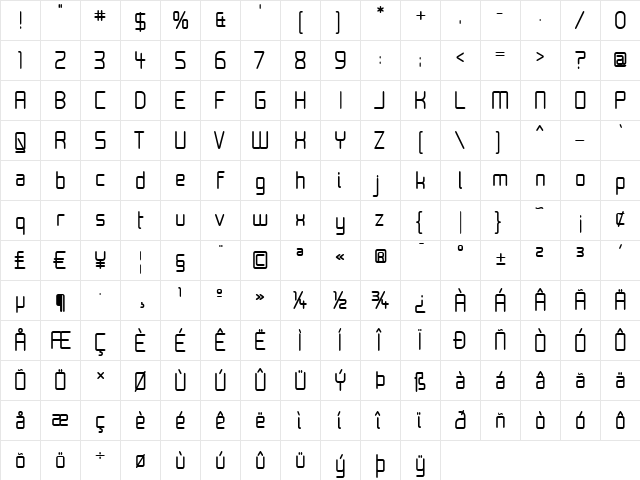
Moondog Thirty Regular
Design Context for Moondog Thirty Typeface
Moondog Thirty offers clean, dependable letterforms without strong stylistic allegiance, making it a practical choice for designers who need flexibility.
Pro Tip: Pair Moondog Thirty with a font of contrasting weight or personality to build a more expressive typographic hierarchy.